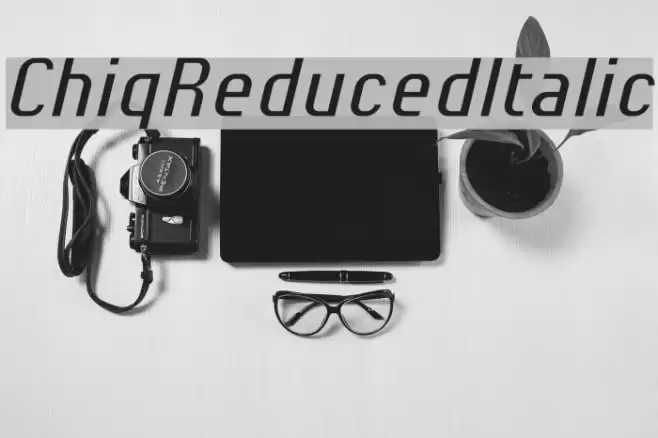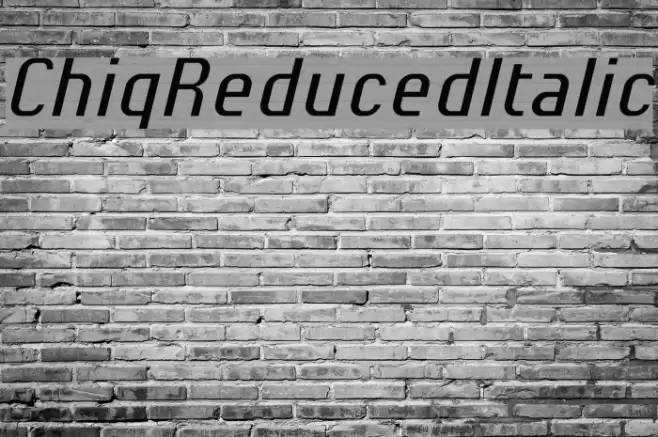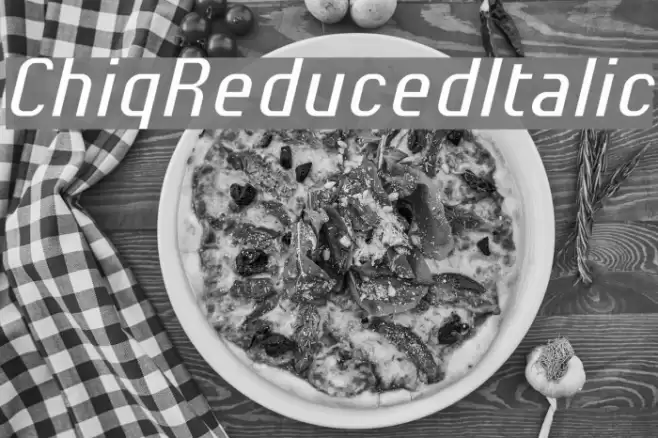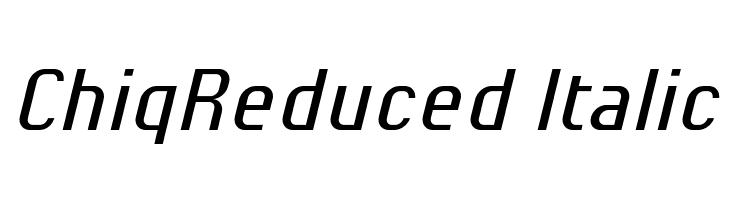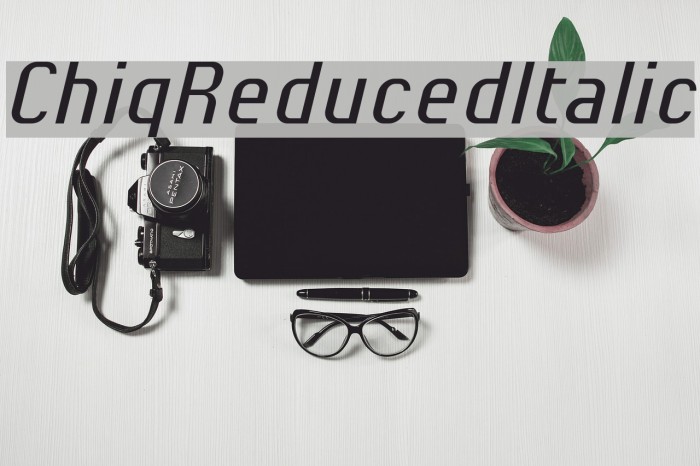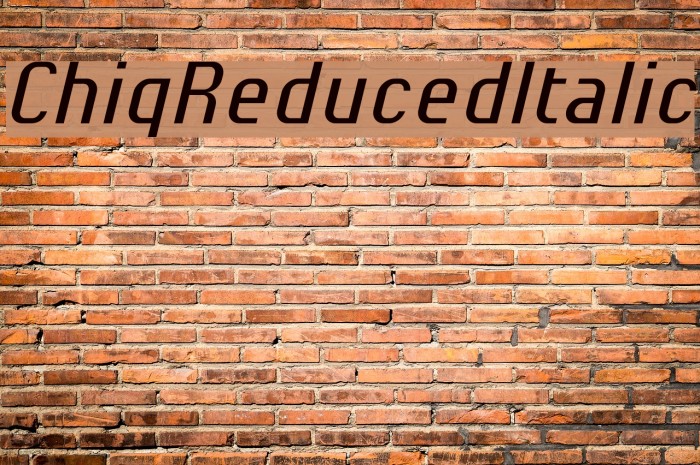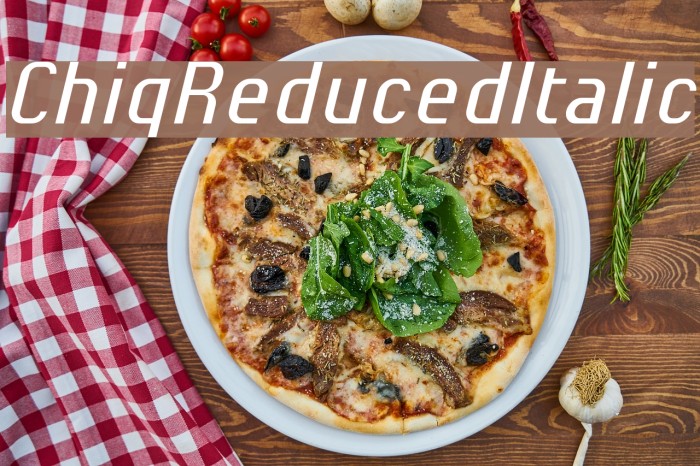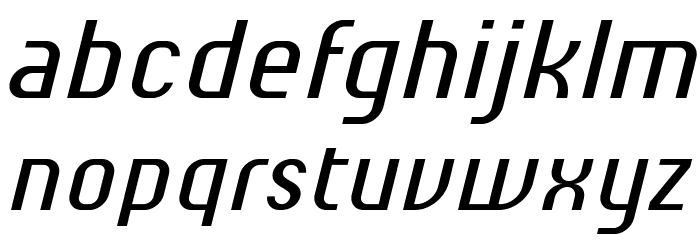
ChiqReduced-Italic Font
ChiqReduced-Italic Description
This font exhibits a sleek and modern design with a distinct italic slant, giving it a dynamic and forward-moving appearance. The characters are slightly condensed, enhancing its streamlined look. The strokes are consistent, with medium contrast that adds to its readability while maintaining a stylish edge. The font's clean lines and geometric shapes make it suitable for contemporary design projects, where a touch of elegance and sophistication is desired. Its versatility allows it to be used in various contexts, from branding to editorial design.
A sleek, modern italic font with a dynamic and streamlined appearance from Uncategorized fonts.
- Proposed Projects: Ideal for branding, editorial design, advertising, and digital media projects.